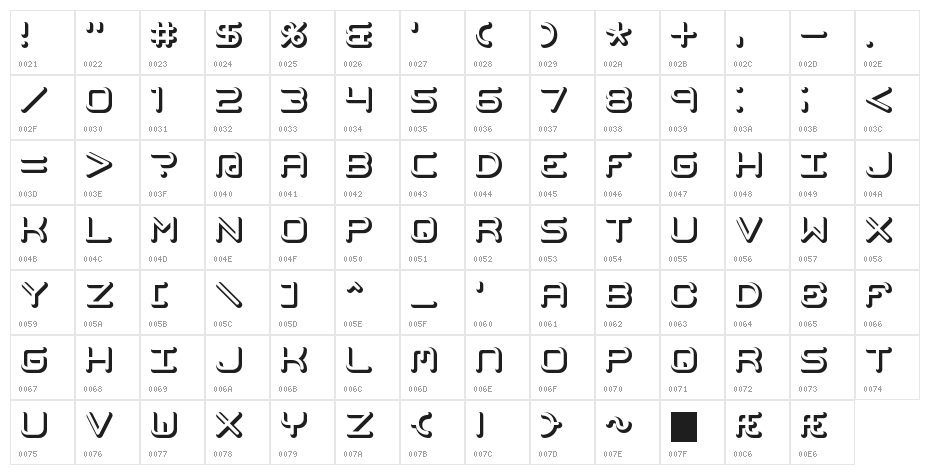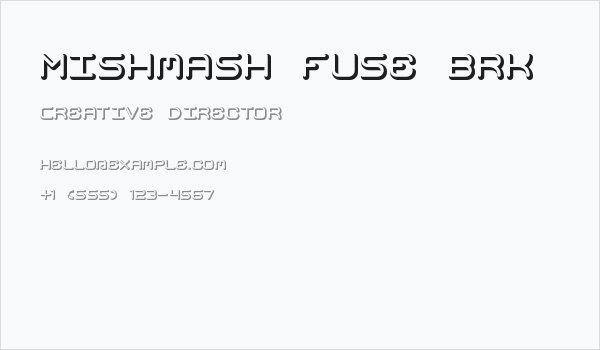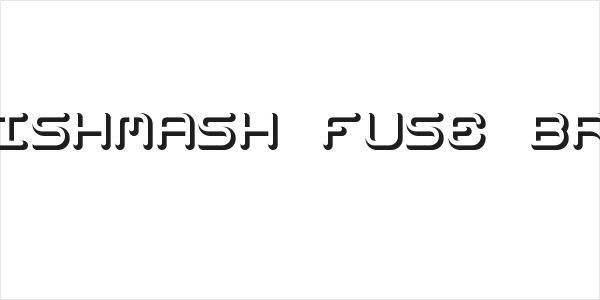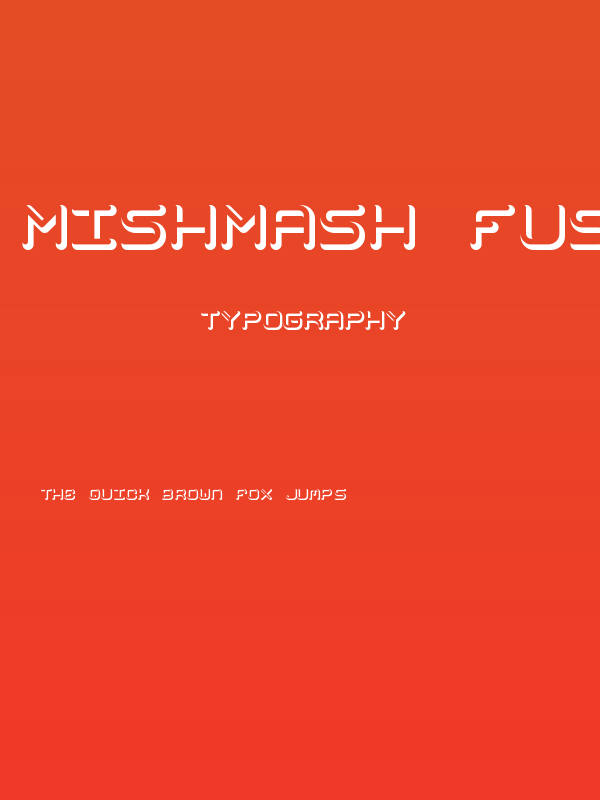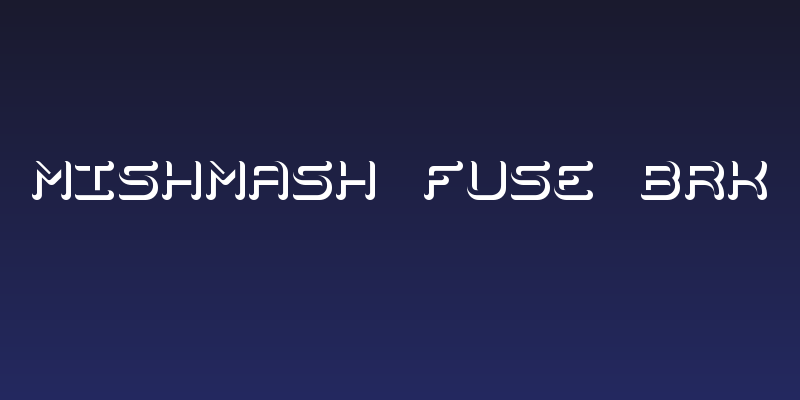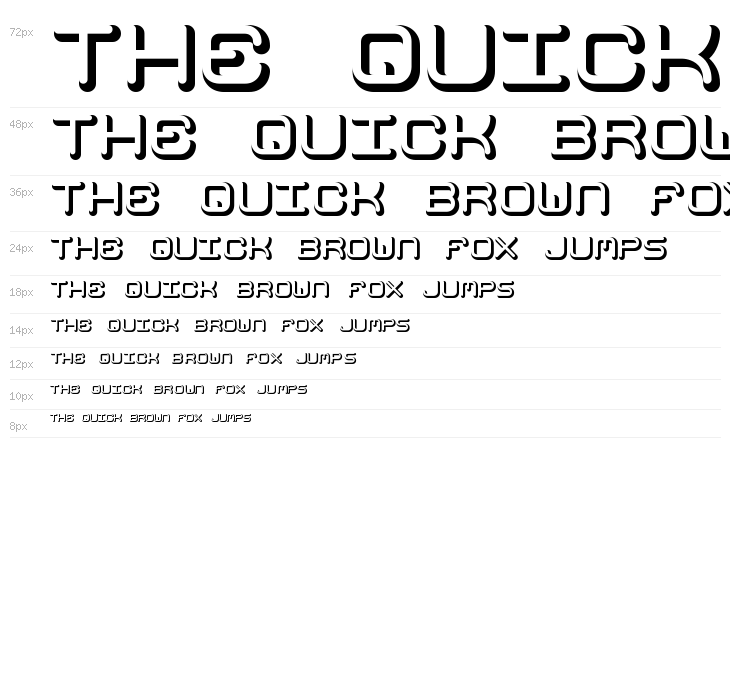
Mishmash Fuse BRK Font
Mishmash Fuse BRK Description
This font features a futuristic and geometric design with a distinct stencil-like appearance. Each character is crafted with bold, rounded edges and cut-out sections that create a unique visual effect. The uppercase and lowercase letters maintain a consistent style, emphasizing a modern and technical aesthetic. The numerals and special characters follow the same design principles, ensuring uniformity across the typeface. This font's bold and structured look makes it ideal for projects that require a contemporary and eye-catching appeal.
Proposed ProjectsIdeal for technology branding, sci-fi themed designs, modern posters, and innovative product packaging.